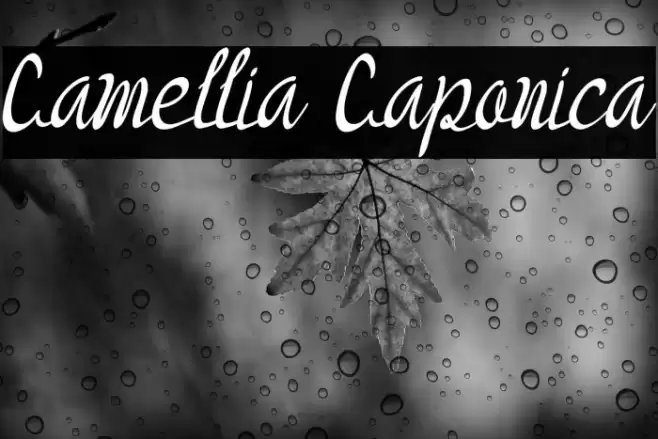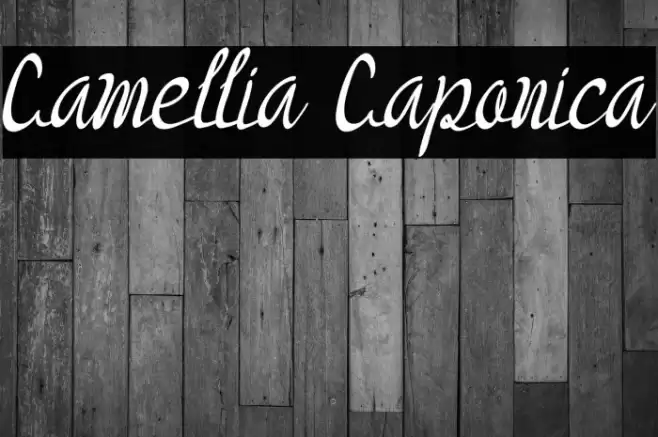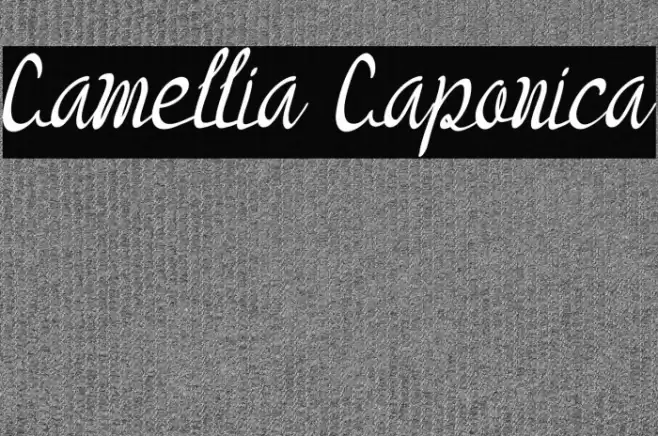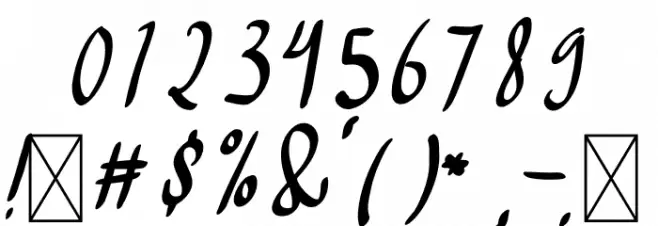
Camellia Caponica Font
Camellia Caponica Description
This font features a flowing, cursive style that exudes elegance and sophistication. The letters are connected, creating a seamless and fluid appearance. The uppercase characters are bold and slightly larger than the lowercase, which adds a dynamic contrast. The numbers maintain the same cursive style, ensuring consistency across all characters. Special characters are also included, matching the overall aesthetic with their graceful curves and loops. The font's design is reminiscent of traditional calligraphy, making it suitable for projects that require a touch of class and refinement.
A flowing, cursive font with elegant, connected letters and a calligraphic style from Regular fonts.
- Proposed Projects: Ideal for wedding invitations, elegant branding, greeting cards, and upscale packaging.
- Character Spacing: Tight
- Overall Style: Classic
- Use Case: Logos, Invitations, Decorative text